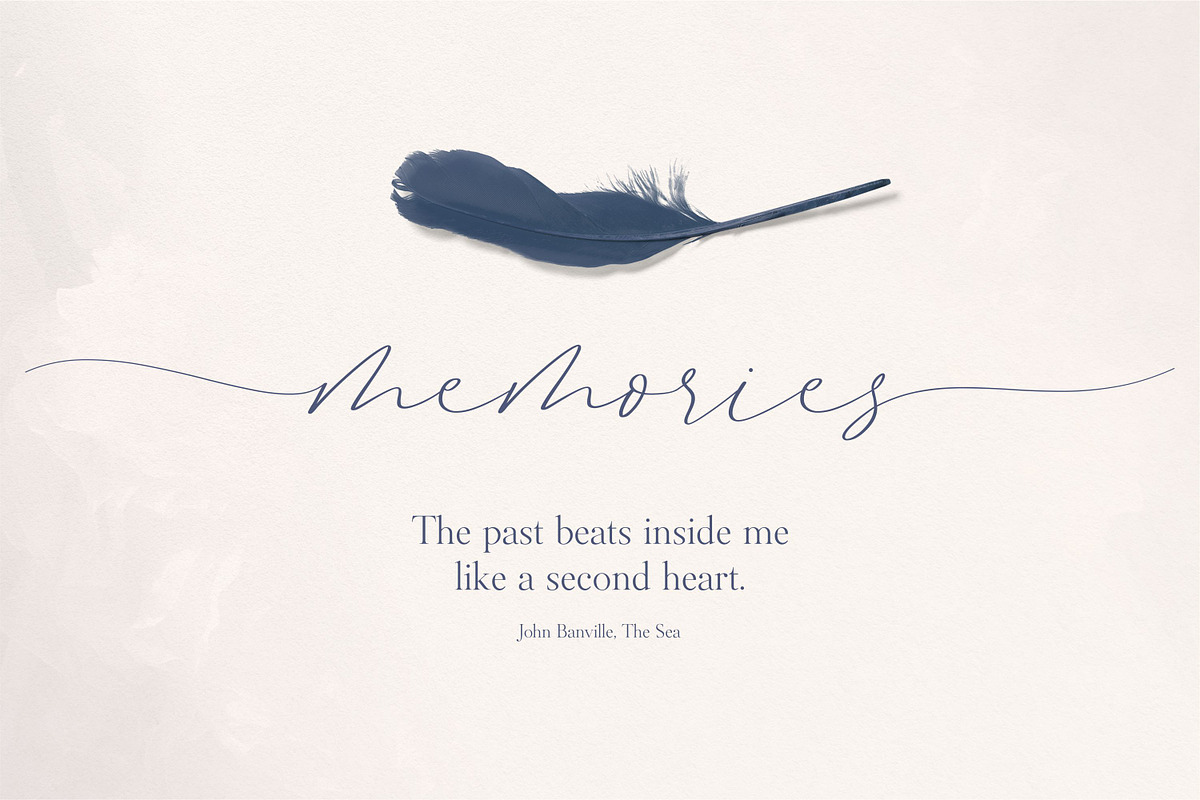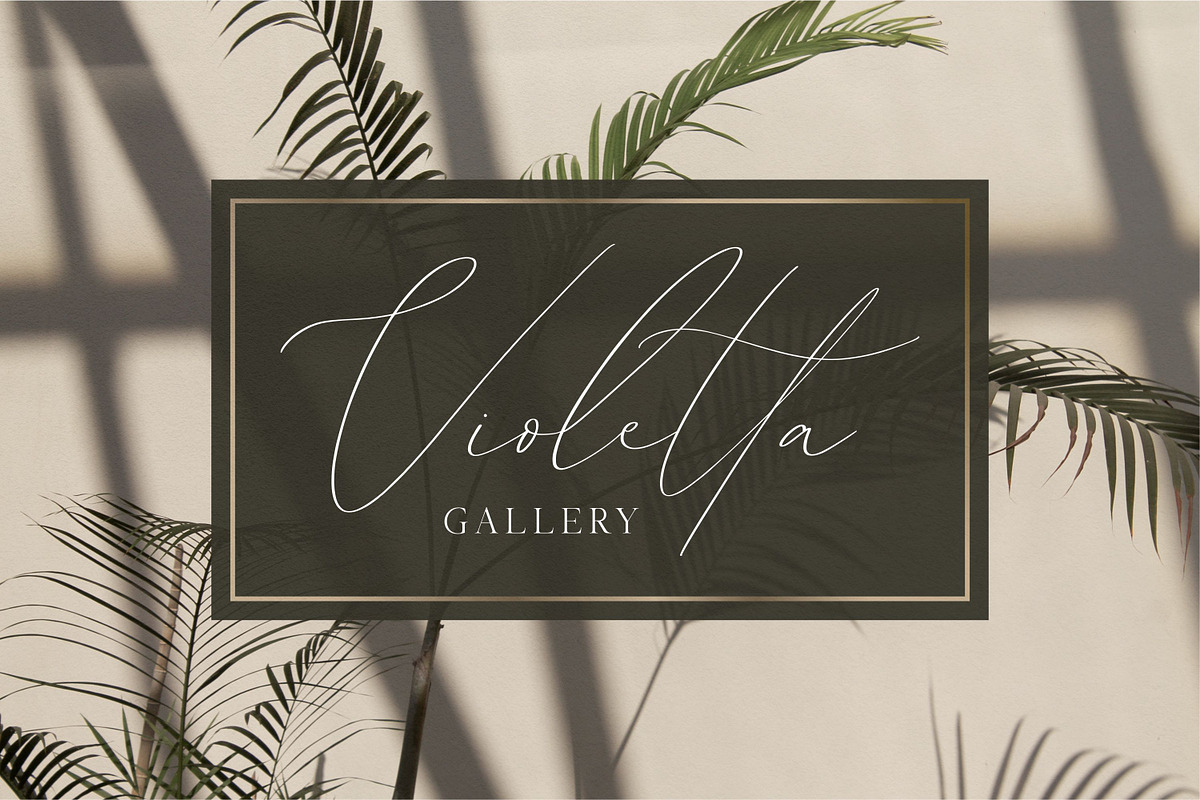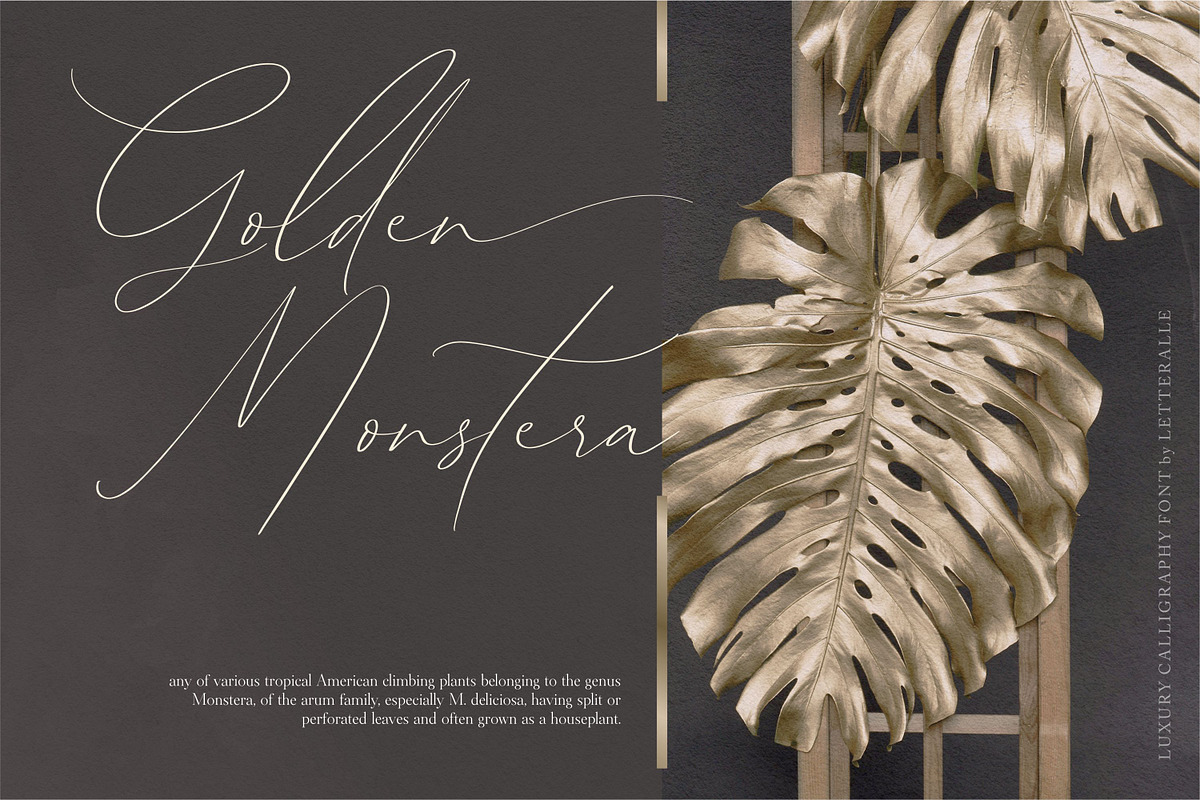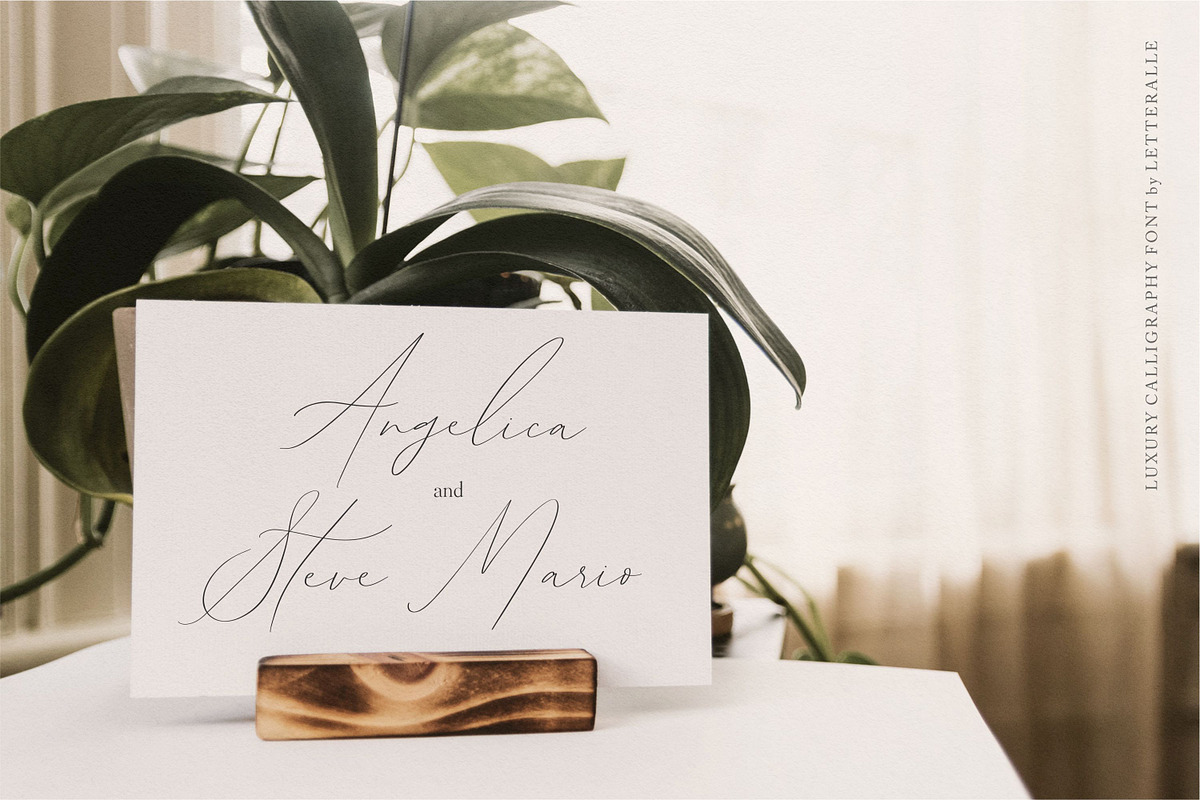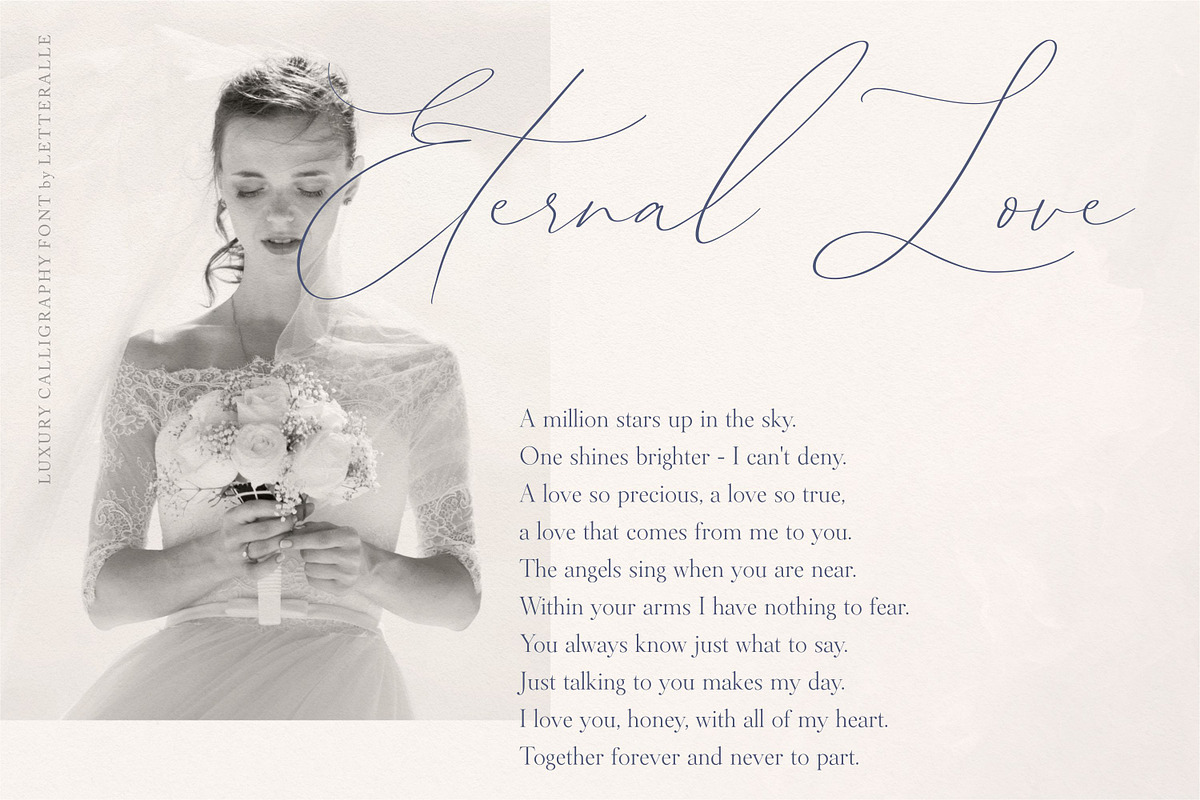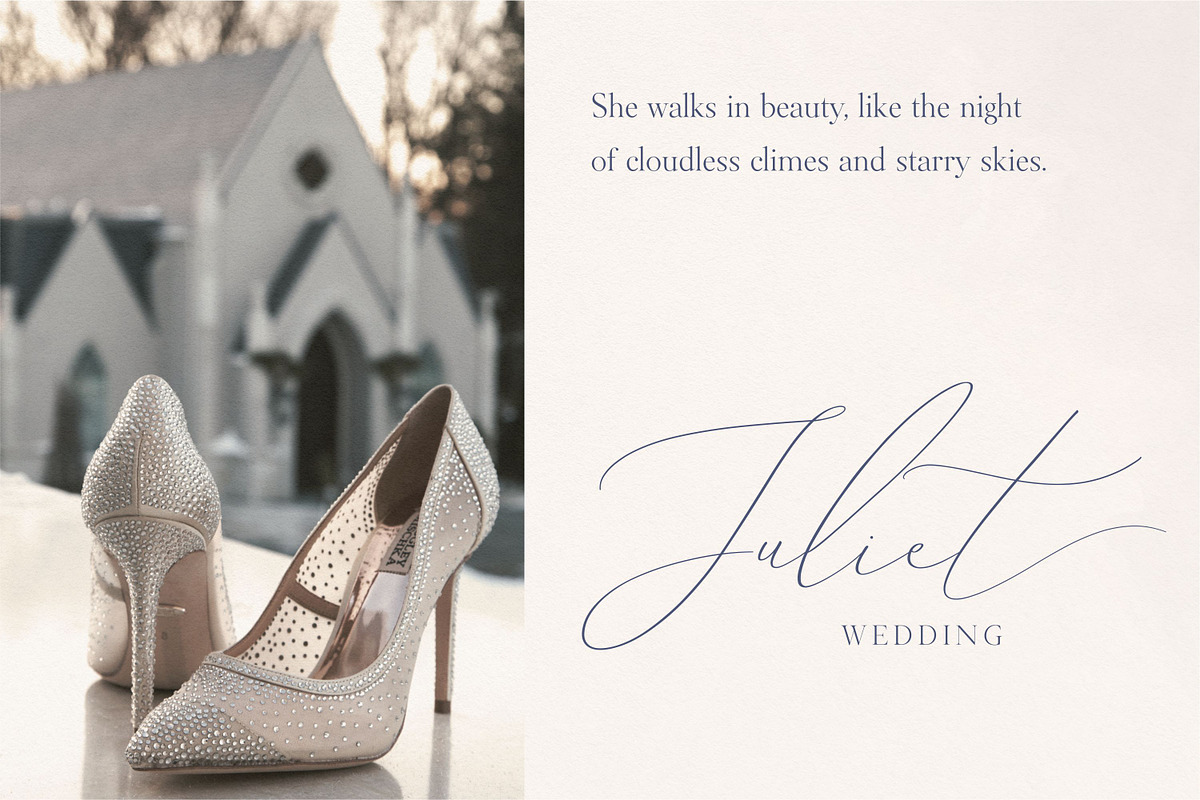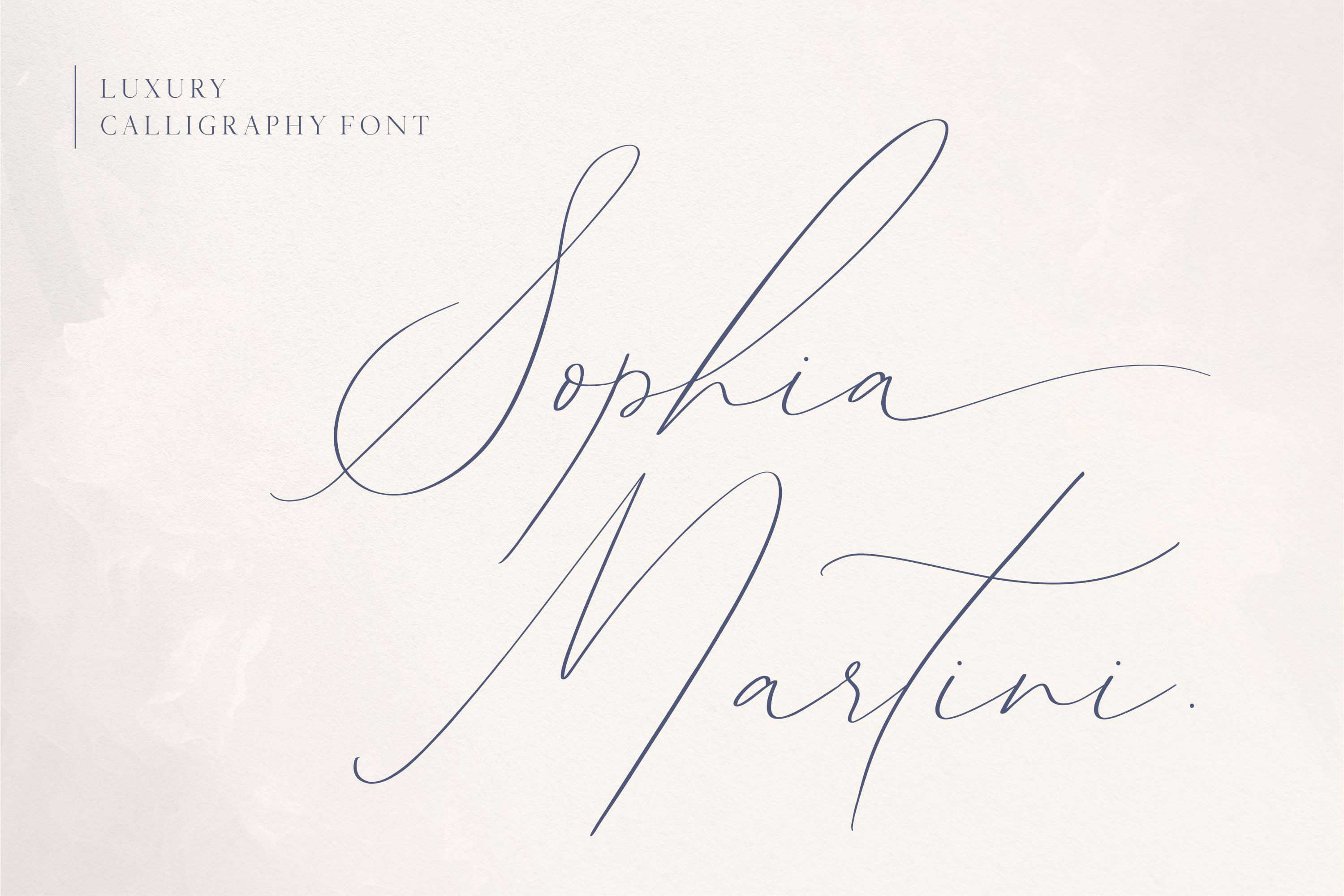
Sophia Martini Calligraphy Font
Introducing to this fancy and beautiful font, Sophia Martini.
What I thought about making this font was how it became a font that represented luxury, elegance, and beauty. With what is owned, Sophia Martini is perfect for wedding invitations, fashion, book titles, stationary, or other projects that require luxurious touch.
Sophia Martini dilengkapi dengan beginning dan ending swashes. To access beginning or ending swash you only need to add the "-" hypen symbol at the beginning or the end of the word. for example if you want to write "Sophia Martini" with the beginning and ending swash, you just have to write "-Shophia Martini-", Very Simple. and that's it. Very simple.